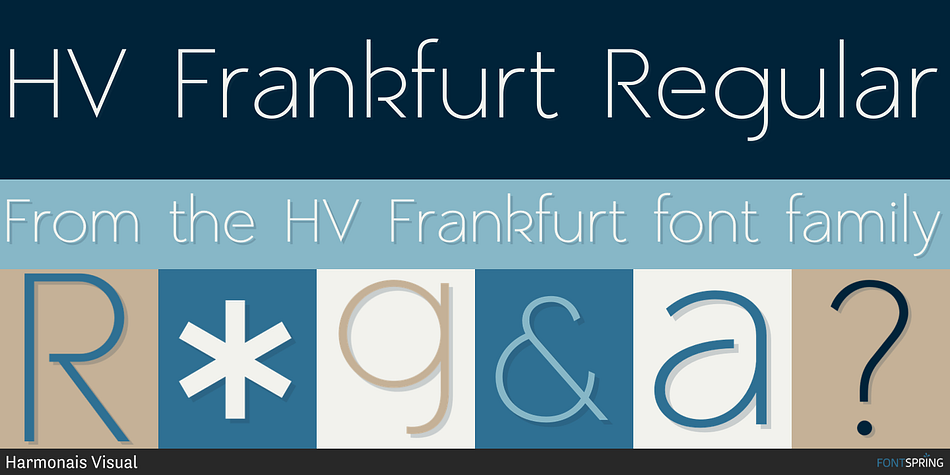
HV Frankfurt Regular
HV Frankfurt is a sans serif font family. This typeface has eight styles and was published by Harmonais Visual.
Frankfurt - a clean, display sans serif with great versatility.
Frankfurt - a clean, display sans serif with great versatility. With multiple weights, this typeface can be used to create a wide range of designs looking to achieve a fun, modern, and youthful look.
PAIRING
This font is versatile and could be paired with lots of other fonts such as HV Fitzgerald, HV Analogue, HV Florentino, HV Olive & Figs, or other clean serifs…
HV FRANKFURT FEATURE:
• Europeans languages
• Vietnamese